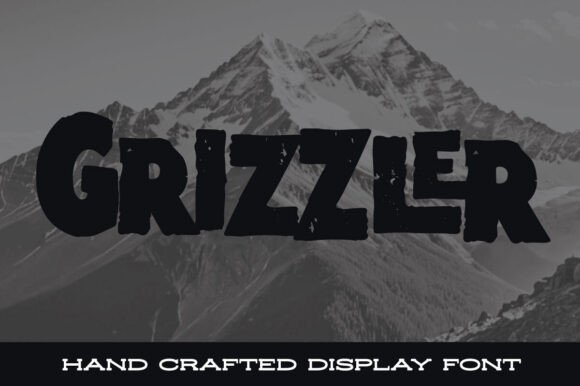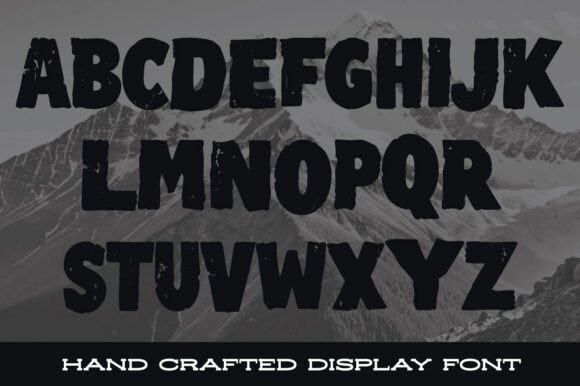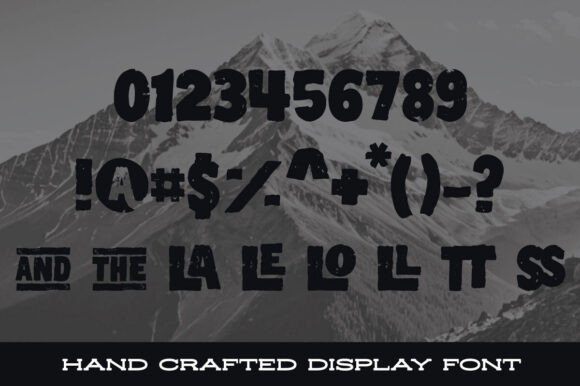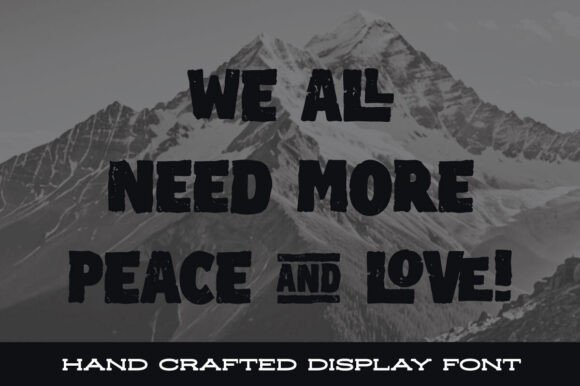
Grizzler Font: A Bold Grunge Display Font for Posters & Edgy Branding
About the Grizzler Font
The wait is over! The incredible Grizzler Font is now available for your design toolkit. Grizzler is a wild, raw, and rugged hand-drawn grunge font that refuses to be tamed. With its rough edges, scratchy strokes, and perfectly imperfect letterforms, this font exudes a rebellious energy. Whether you’re designing edgy posters, gritty branding, or anything that needs a hand-crafted, worn-in feel, Grizzler brings the attitude. It’s bold, scrappy, and full of personality—perfect for projects that embrace the beauty of chaos and creativity.
Grizzler excels in headline applications, short impactful phrases, and branding for products emphasizing ruggedness or rebellion. It’s ideal for posters, logos, and packaging designs needing a strong, hand-crafted aesthetic. However, its highly textured nature makes it unsuitable for body text or UI elements where legibility is paramount. Extended use will strain readability.
Pairing Grizzler effectively requires a contrasting typeface to balance its aggressive energy. A clean sans-serif like Futura or a minimalist geometric font would provide a strong counterpoint. For a softer contrast, consider a neutral serif such as Garamond or a slightly more playful script typeface, but keep it minimal to avoid visual clutter.
Grizzler’s overall personality is bold and rebellious, conveying a raw, untamed energy. Its imperfect forms add character and authenticity, making it perfect for brands seeking to communicate a sense of grit and authenticity.
Grizzler Font Usage Examples
Grizzler Font Example